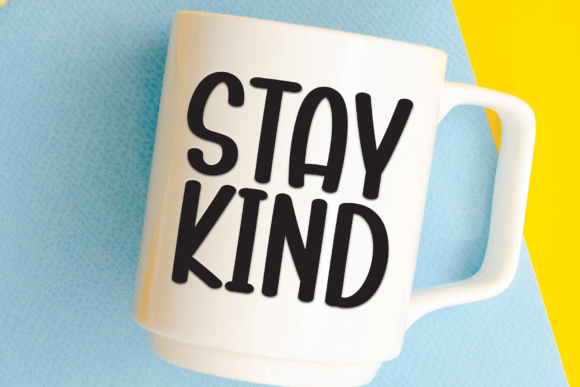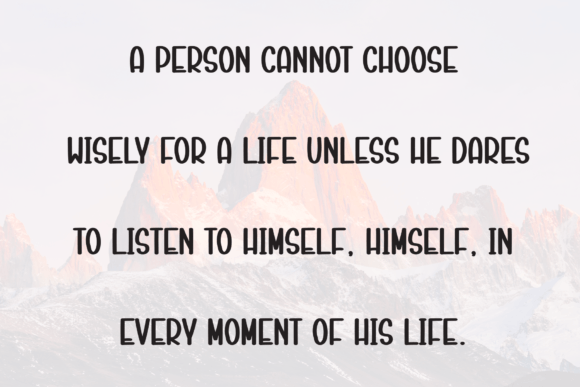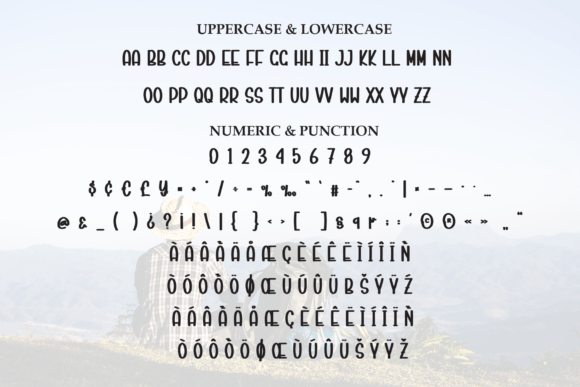
Introduction to Mountain Vacation Font
Have you ever stumbled upon a beautiful design that made you feel like you’re on a serene mountain getaway? For designers, that ‘aha’ moment is what makes our job so rewarding. As we search for the perfect design resource, we often find ourselves on a quest for something that captures the essence of our creative project. That’s where the charming Mountain Vacation Font comes in – a sweet and friendly handwritten font that adds a lovely touch to any design.
With its cute and versatile style, the Mountain Vacation Font is ideal for writing wedding invitations, cards, or any other design that requires a personal and high-quality touch. Plus, its transparent background makes it a great addition to any design project. Whether you’re a seasoned designer or just starting out, this font is a valuable resource that can elevate your designs to the next level.
Key Features of Mountain Vacation Font
- High-quality design resource perfect for creative projects, offering a unique and refreshing aesthetic.
- Comes with a transparent background, making it easy to use in various design applications.
- Features a clean and modern design, suitable for use in various creative projects, from logos to typography.
- Perfect for designers and artists working on a wide range of creative projects, from print to digital media.
One of the standout features of the Mountain Vacation Font is its versatility. ✨ It’s perfect for outdoor-themed projects, but it can also be used for more abstract designs. The font’s unique blend of rustic and modern elements makes it a great addition to any design resource.
- High-quality design that’s perfect for print or digital use
- Transparent background, making it easy to customize and overlay with other elements
- Compatible with a wide range of fonts and design software
- ⚠️ The font may not be suitable for projects that require a more formal or corporate tone
- ⚠️ The font’s unique style may not be to everyone’s taste
For the best results, use Mountain Vacation Font in a creative project where its unique design will shine. Consider using it for travel or outdoor-themed projects.
Mountain Vacation Font is perfect for:
Travel brochures
Outdoor advertising
Photography captions
And more!